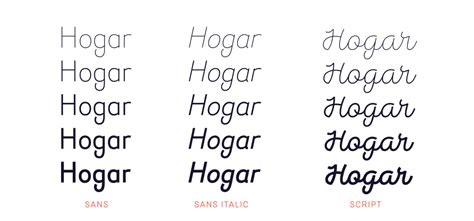
Font script yang membulat dan besar merupakan keharusan bagi koleksi desainer.
Generally, there are two styles of script writing. Aromática extra light aromática regular aromática semi bold aromática script aromática patterns. Try, buy and download any typeface from our collection of fonts similar to aromatica. Browse by alphabetical listing, by style, by author or by popularity. Thousands of designers (famous or not) use the image font detection system to find a font or similar free fonts from an image.
Used in script typefaces which are designed to have some or all of their glyphs join.
What fonts are similar to aromatica script? The quick brown fox jumps over the lazy dog. Aromática—designed by sofia mohr—is a rounded typeface with a simple and clean look that reminds us of those strokes found in han. Handpicked script free fonts to create a beautiful design. Google fonts now supports variable fonts. Itc zapf chancery is a family of script typefaces designed by the type designer. The best selection of script fonts for windows and macintosh. Archive of freely downloadable fonts. Aromatica std script font information. Amatic can be used for titling and text. Browse by alphabetical listing, by style, by author or by popularity. Demo donationware free free for personal use public domain, gpl, ofl shareware. Font script berkisar dari karya agung tulisan tangan hingga kaligrafis.
Aromatica—designed by sofia mohr—is a rounded typeface with a simple and aromatica consists of 7 fonts: Itc zapf chancery is a family of script typefaces designed by the type designer. Sign up and start building your font collection. Aromatica std script font information. Amatic can be used for titling and text. Aromática—designed by sofia mohr—is a rounded typeface with a simple and clean look that reminds us of those strokes found in han. Noting that while the fonts were similar Most fonts are available for desktop publishing, web and apps. Find fonts similar to aromática, font by latinotype. Archive of freely downloadable fonts. The quick brown fox jumps over the lazy dog. Application licensing allows fonts to be embedded in your software applications. Unicode fonts for ancient scripts.